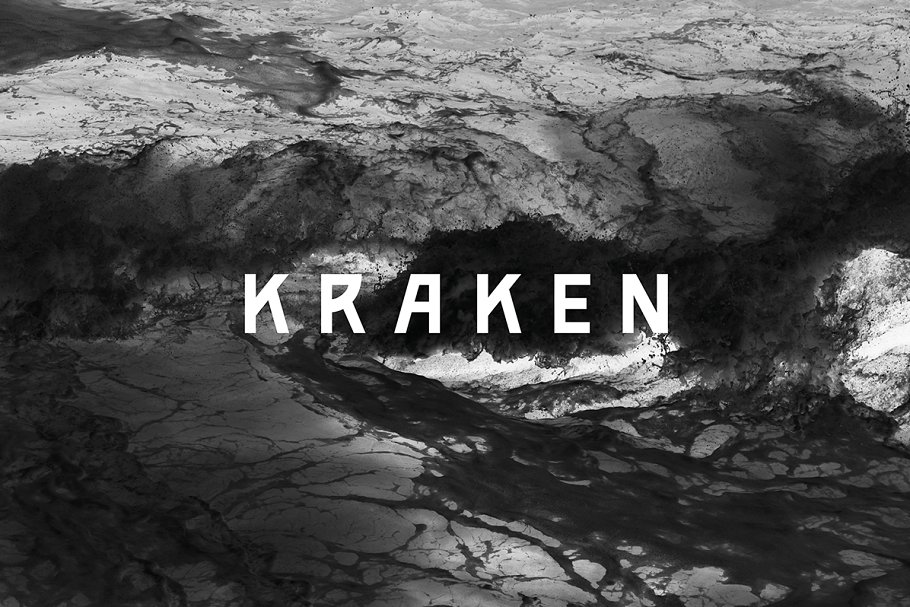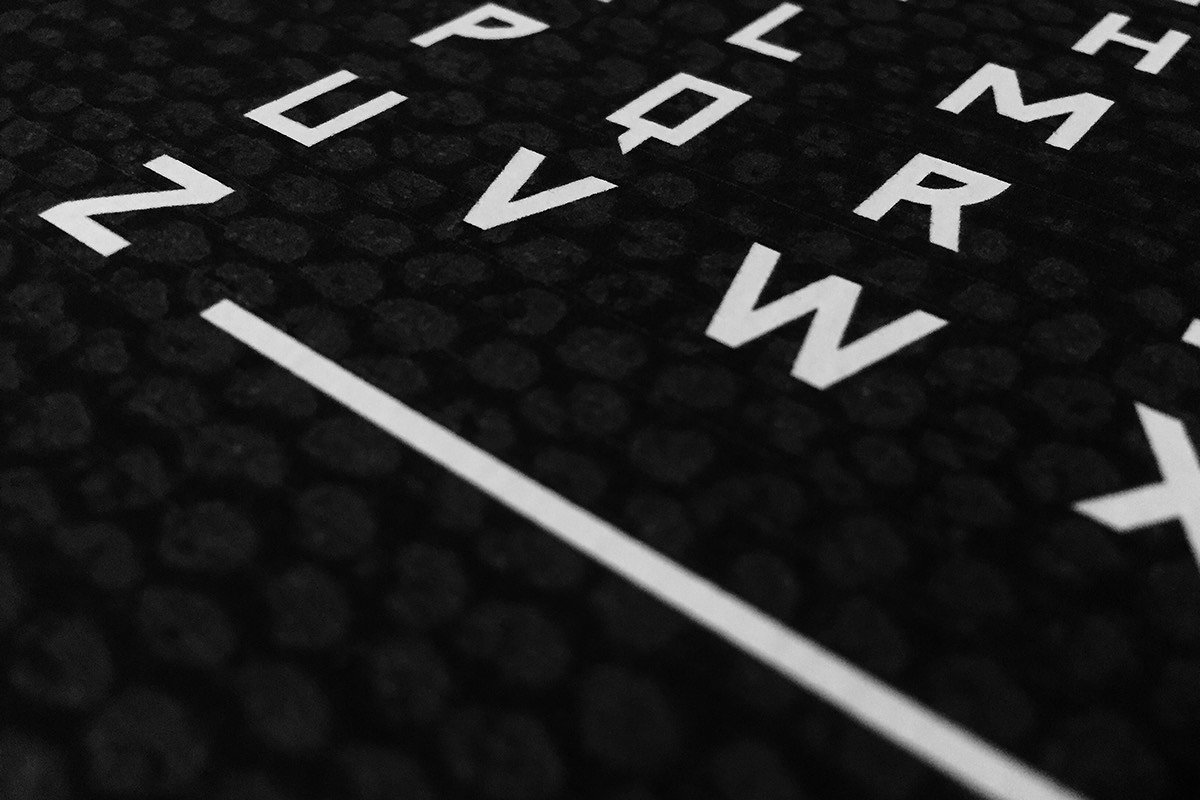
About the YT Kraken Font
YewType Kraken was designed to embody both the style of Norwegian diacritical marks and the fabled monster known as the Kraken, Harsh, bluntly chiselled letterforms make this display font perfect for shouty signage, or a strong and unrelenting branding campaign, Please note: this is an UPPERCASE ONLY font